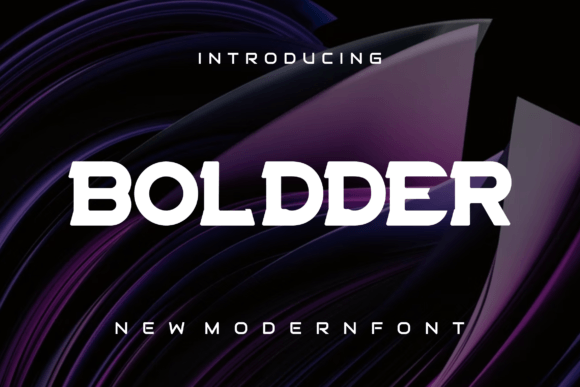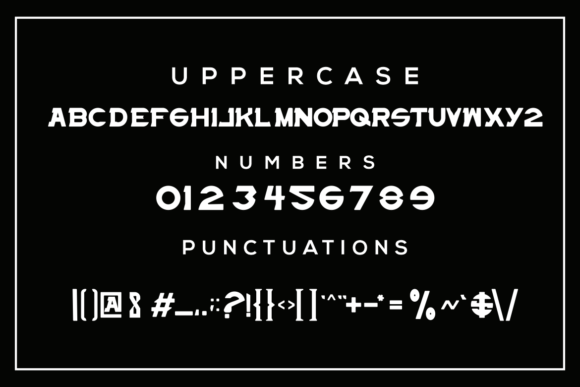
Boldder Font
BOLDDER FONT SPECIMEN
Boldder is a modern slab serif font that feels beautiful classy, elegant, and modern. This font is perfectly suited for a wide variety of projects, such as signature, stationery, logo, wedding, typography quotes, magazine or book cover, website header, clothing, branding, packaging design, and more.